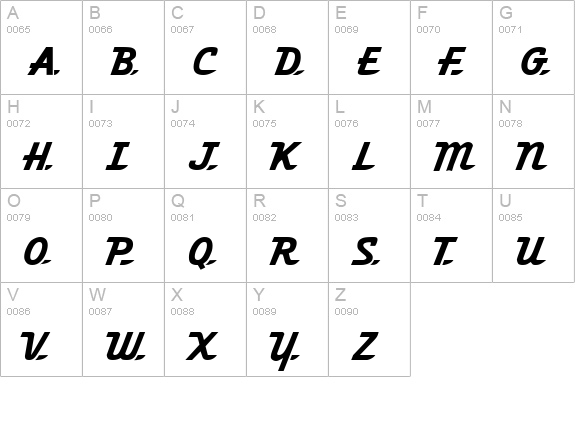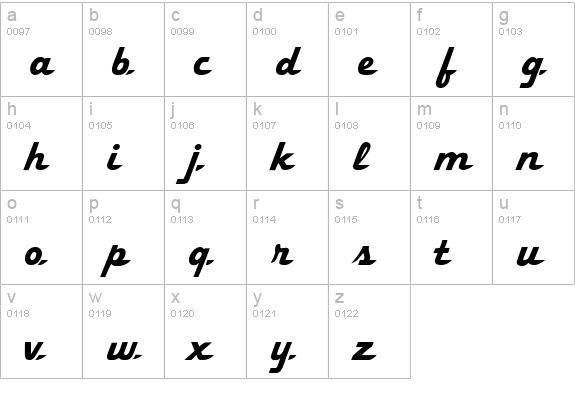
Police Font Details
Introducing Police font, a sleek and modern typeface that exudes authority and professionalism. With its sharp lines and bold presence, Police font is perfect for creating impactful designs that command attention. Whether you're working on a law enforcement-related project or simply want to add a touch of sophistication to your work, Police font is the perfect choice. The best part? Police font is completely free to download at FontsMarket.com. Yes, you read that right - you can get your hands on this stylish font without spending a dime. So why wait? Elevate your designs with Police font today and make a bold statement that demands to be noticed.